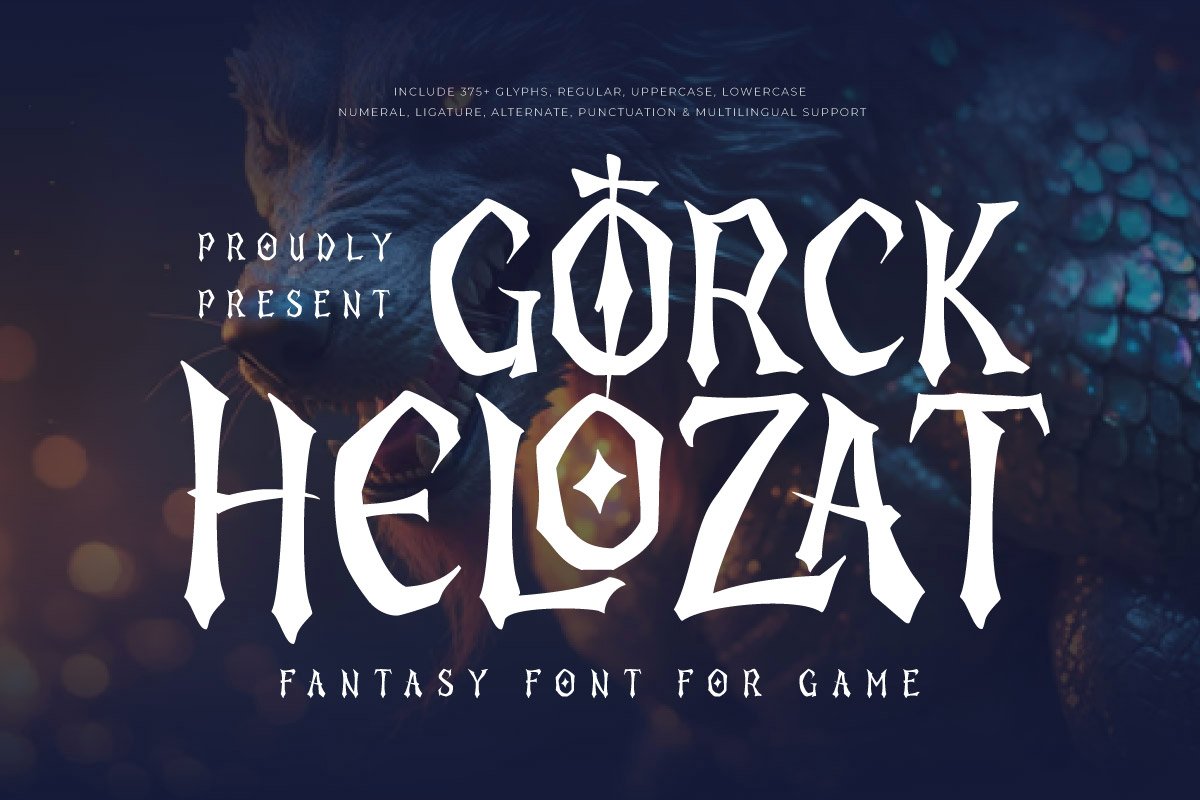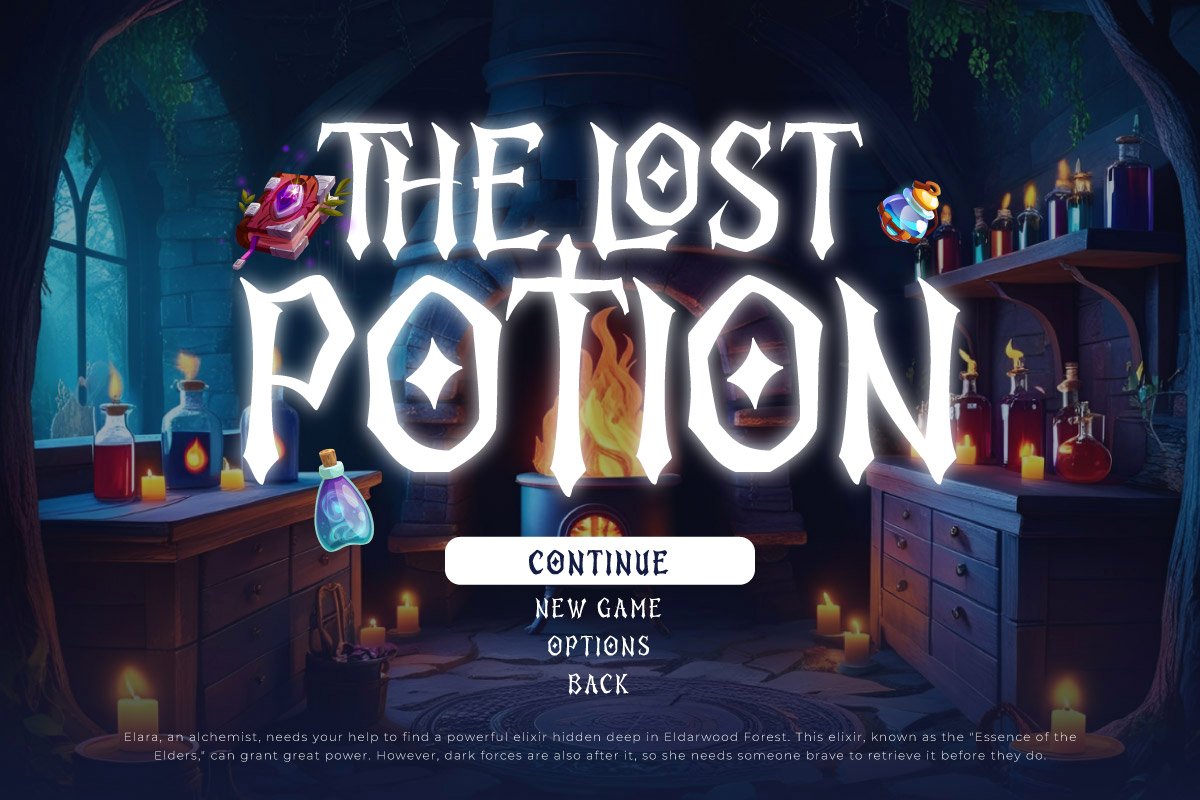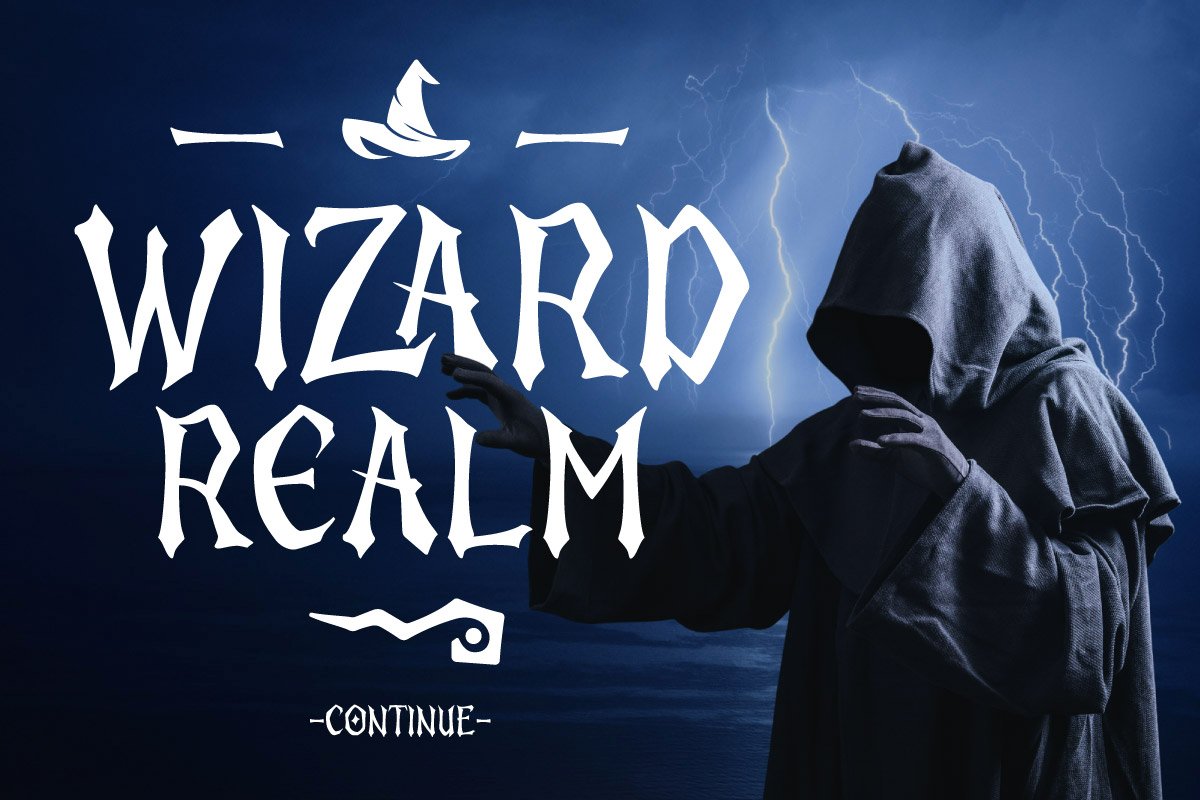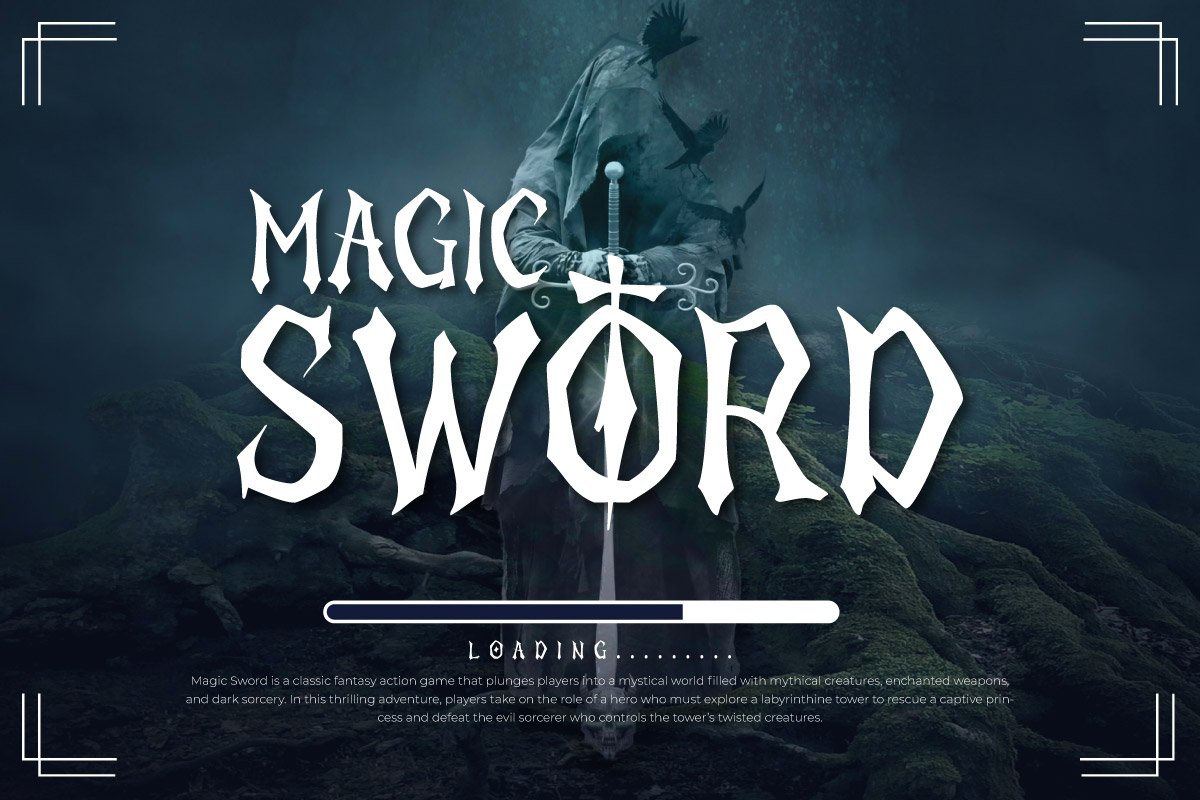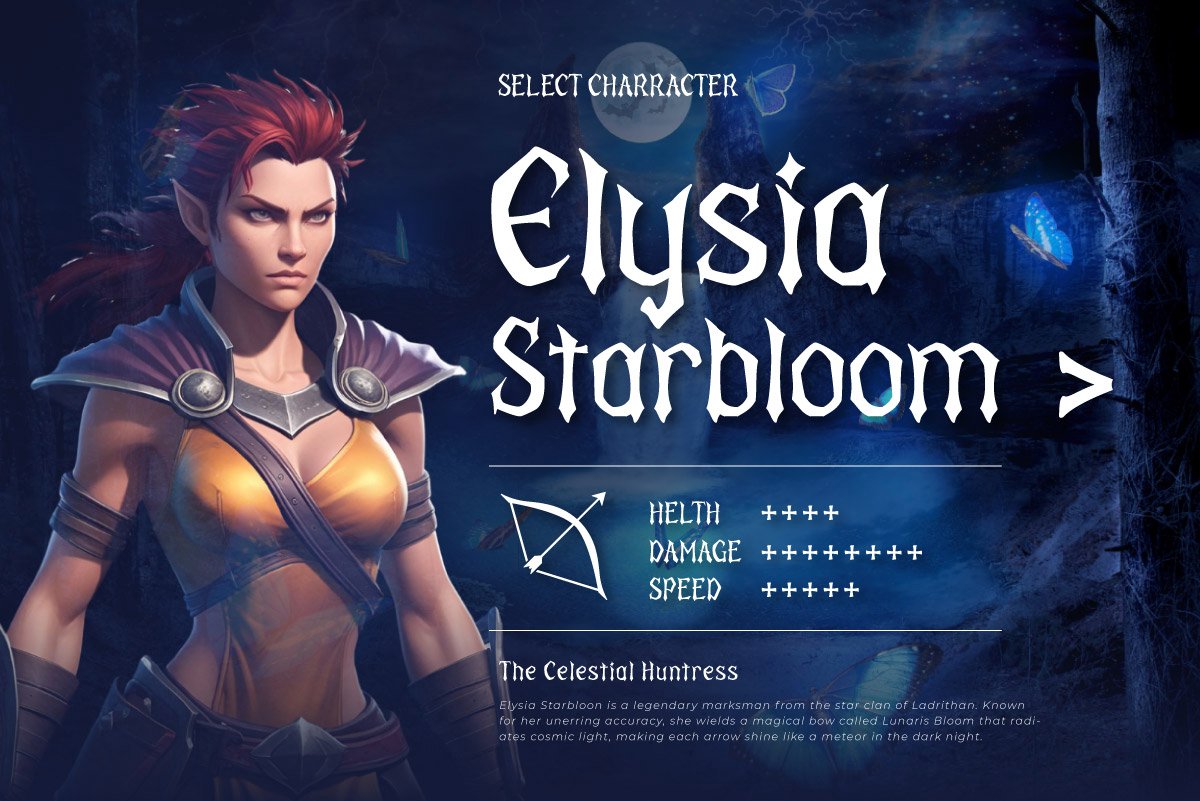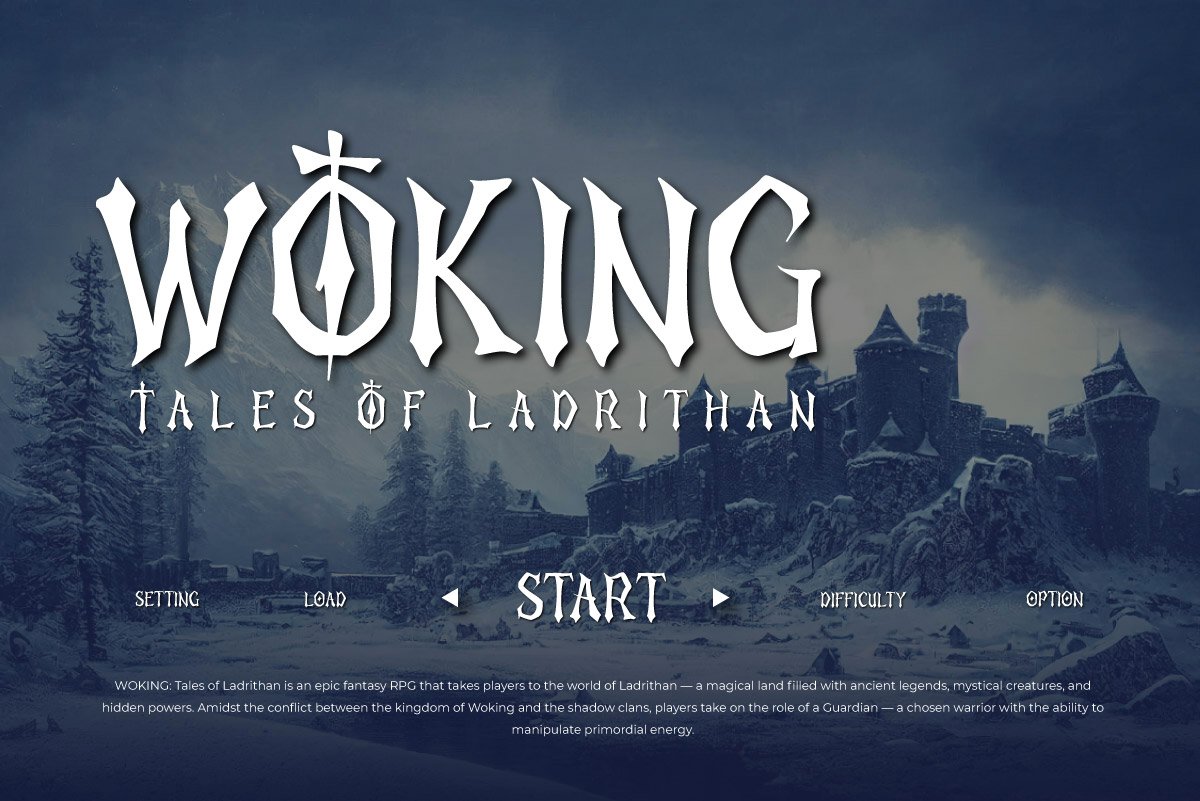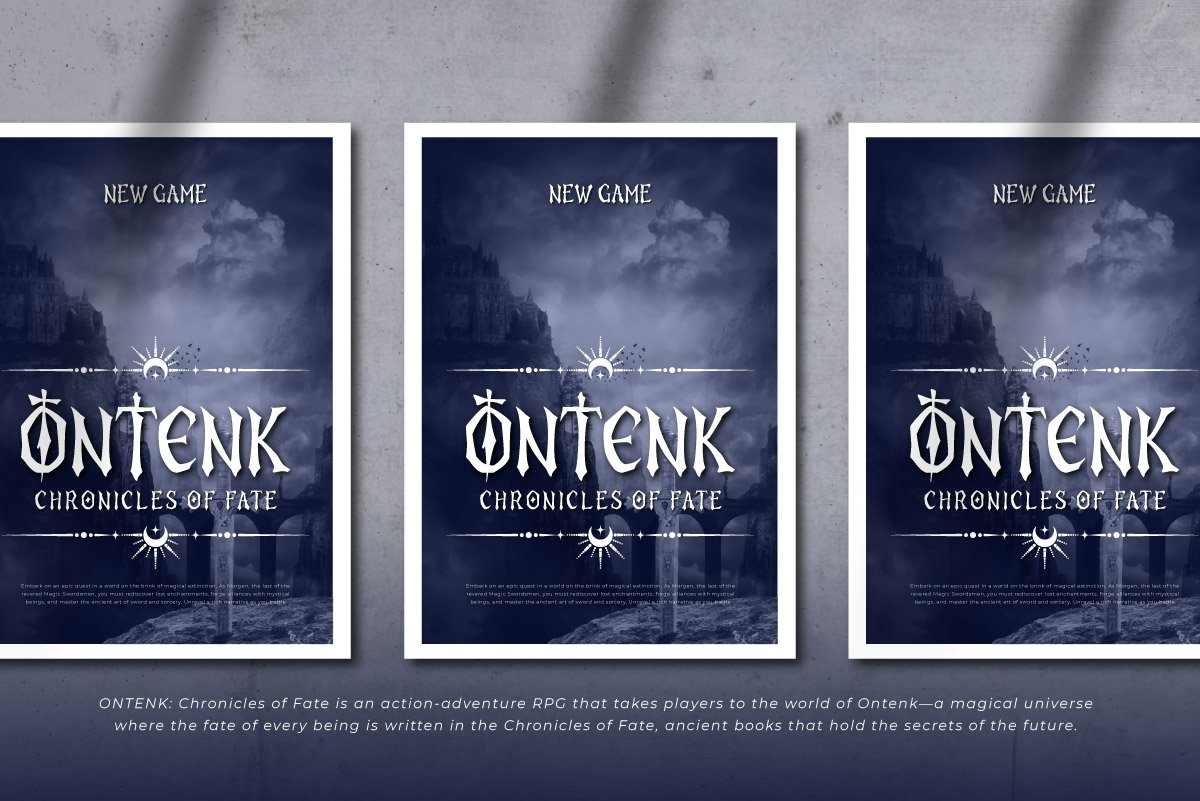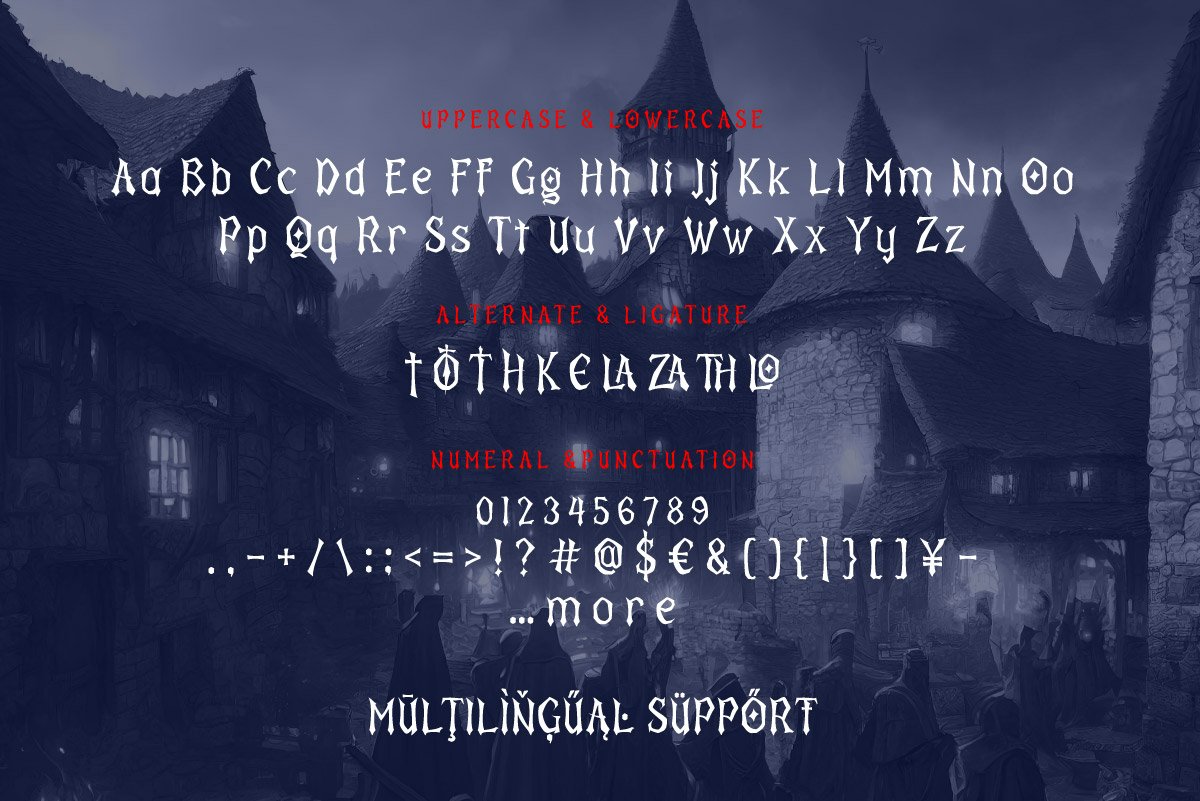
7. Gorck Helozat – Display Fantasy Font
Gorck Helozat – Display Fantasy Font
Gorck Helozat is a powerful and mythical fantasy display font, designed to bring an epic, medieval, and adventurous touch to any project. Its bold, sharp-edged, and intricate letterforms capture the essence of ancient legends, enchanted worlds, and heroic quests, making it a perfect choice for game titles, RPG branding, fantasy book covers, and mystical-themed designs.
Inspired by legendary warriors, mystical symbols, and forgotten runes, Gorck Helozat exudes a sense of mystery and strength. The strong strokes and elegant yet fierce detailing create an immersive fantasy experience, ideal for projects that demand a magical and battle-hardened aesthetic.
Whether you are designing for a high-fantasy RPG, an action-packed adventure game, or a mythical branding project, Gorck Helozat will add depth, intensity, and a legendary presence to your visuals. Step into a realm of fantasy and heroism with this striking typeface!